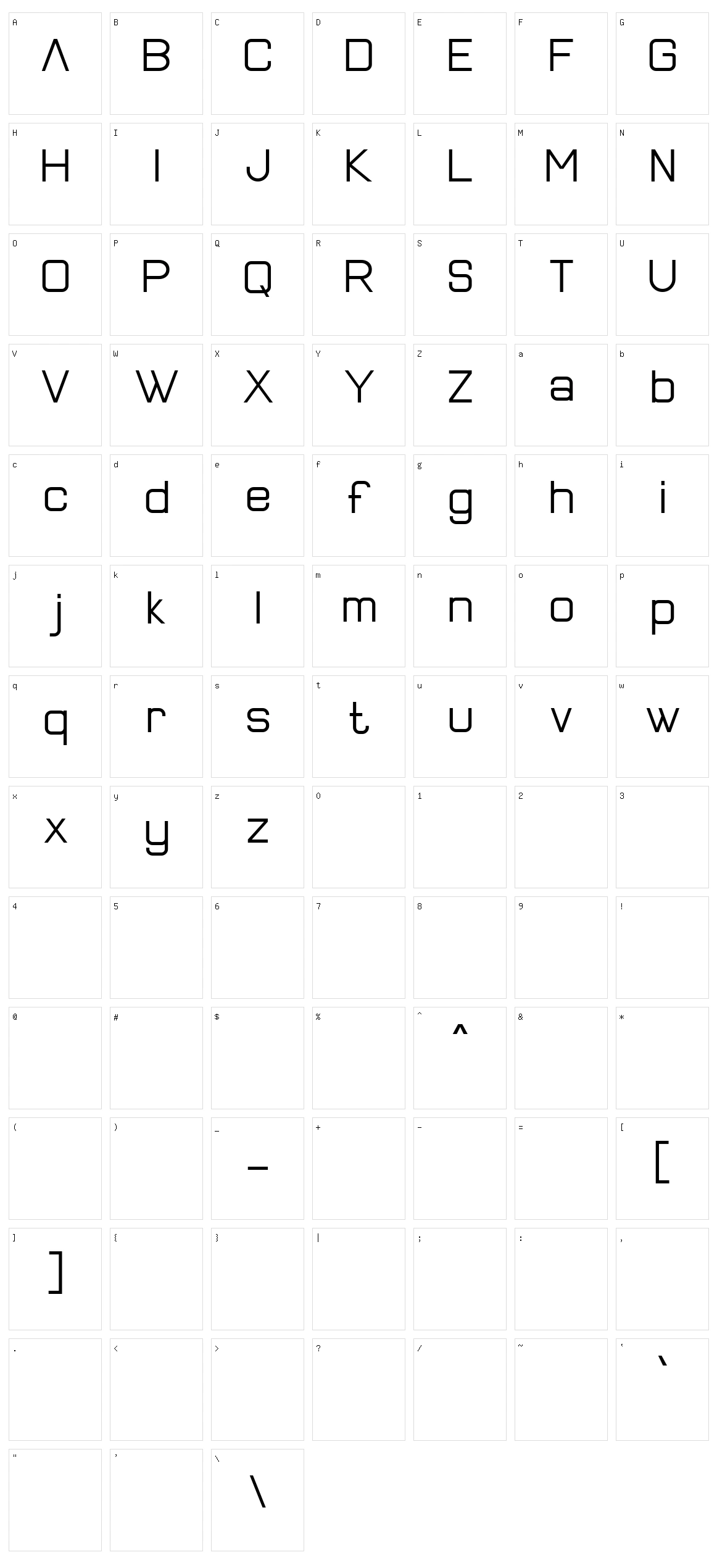
The free font New Alenia is carefully designed by Shanaya Studio, showcasing a thoughtful balance of creativity and usability and falls under the Sans serif font style. When you download the ZIP file, it contains only 79.05 KB of font files, making it lightweight and quick to download. Please review the license details below to understand permitted usage and distribution rights. If license information is not available, we recommend using this font for personal projects only or contacting the author directly for commercial usage permissions.